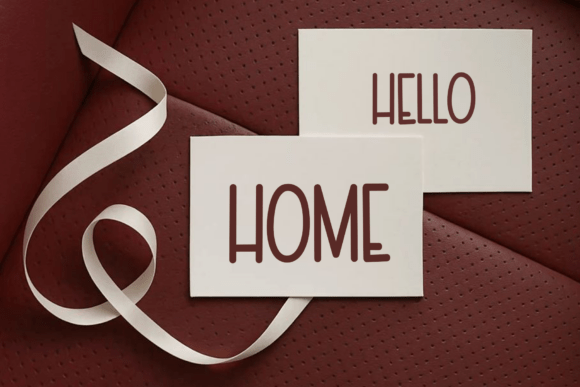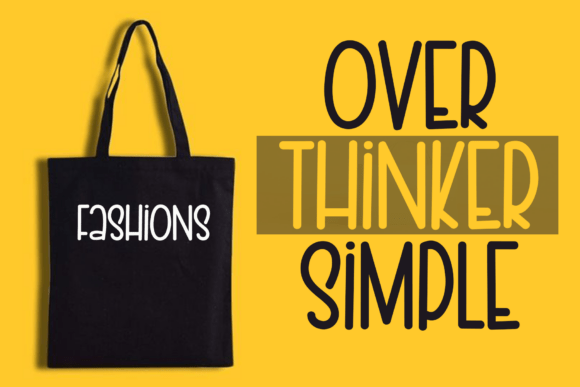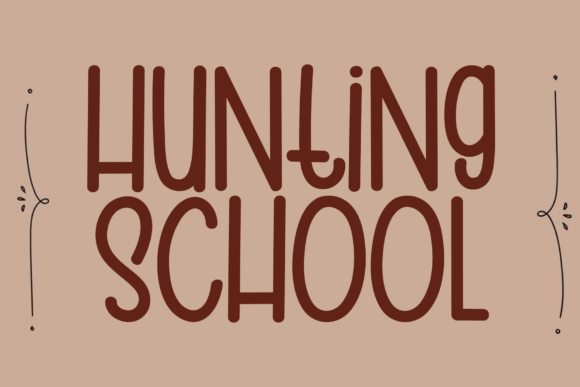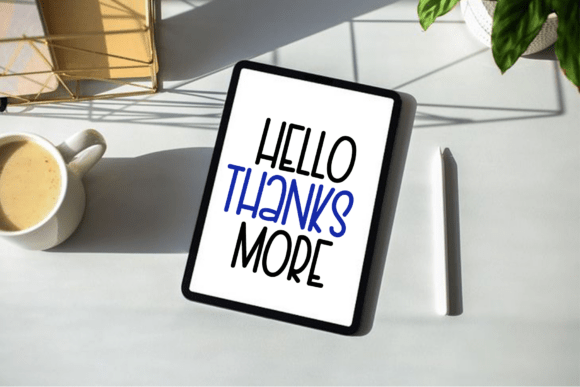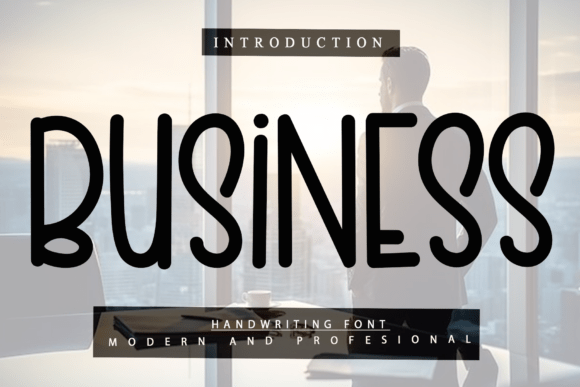
The Power of Business Font: Elevate Your Design with a Friendly and Approachable Typeface
In the world of design, typography plays a crucial role in communicating a message and establishing a brand’s identity. When it comes to creating a friendly and approachable feel, the right font can make all the difference. This is where Business Font comes in – a casual handwritten font that brings a warm and authentic touch to any design.
What is Business Font?
Business Font is a carefully crafted typeface that embodies a relaxed and natural look. Its smooth strokes and relaxed letterforms create a sense of warmth and approachability, making it perfect for designs that require a personal touch. Whether you’re working on notes, educational materials, or creative projects, Business Font is the ideal choice to add a friendly and engaging feel.
Characteristics of Business Font
So, what sets Business Font apart from other typefaces? Here are some of its key characteristics:
- Smooth Strokes: Business Font features smooth, flowing strokes that give it a natural and authentic look.
- Relaxed Letterforms: The font’s letterforms are designed to be relaxed and casual, creating a sense of warmth and approachability.
- Clear Legibility: Despite its casual nature, Business Font remains clear and legible, making it perfect for body text and headings.
- Versatile: Business Font is versatile and can be used for a wide range of design projects, from notes and educational materials to creative projects and branding.
Uses of Business Font
Business Font is a versatile typeface that can be used in various design projects. Here are some of the ways you can use Business Font:
- Notes and Handouts: Add a personal touch to your notes and handouts with Business Font.
- Educational Materials: Use Business Font to create engaging and interactive educational materials, such as worksheets, presentations, and activity sheets.
- Creative Projects: Business Font is perfect for creative projects, such as illustrations, comics, and graphic novels.
- Branding: Use Business Font to create a friendly and approachable brand identity for your business or organization.
Benefits of Using Business Font
So, why should you choose Business Font for your design projects? Here are some of the benefits of using Business Font:
- Warm and Inviting: Business Font adds a warm and inviting touch to your designs, making them more engaging and approachable.
- Easy to Read: Business Font is clear and legible, making it easy to read and understand.
- Versatile: Business Font can be used for a wide range of design projects, making it a great addition to your font library.
- Unique: Business Font has a unique and distinctive look that sets it apart from other typefaces.
Tips for Using Business Font
Here are some tips for using Business Font effectively in your design projects:
- Use it for Body Text: Business Font is perfect for body text, as it’s clear and legible.
- Pair it with Other Fonts: Experiment with pairing Business Font with other fonts to create a unique and interesting look.
- Adjust the Size: Adjust the size of Business Font to create visual hierarchy and emphasis.
- Experiment with Colors: Experiment with different colors to add contrast and interest to your design.
In conclusion, Business Font is a powerful and versatile typeface that can elevate your design projects with its friendly and approachable feel. With its smooth strokes, relaxed letterforms, and clear legibility, Business Font is perfect for notes, educational materials, creative projects, and branding. Whether you’re a designer or a crafter, Business Font is a great addition to your font library.